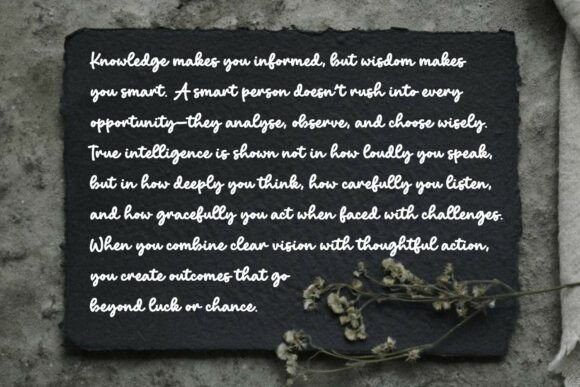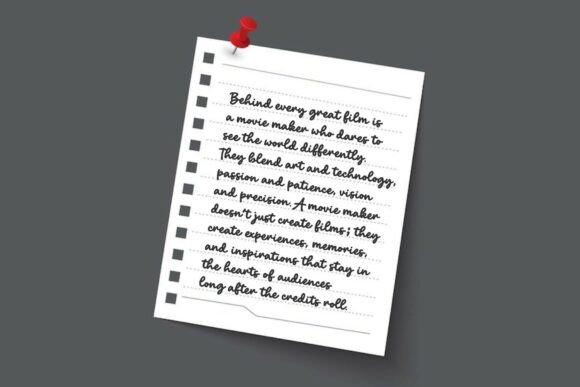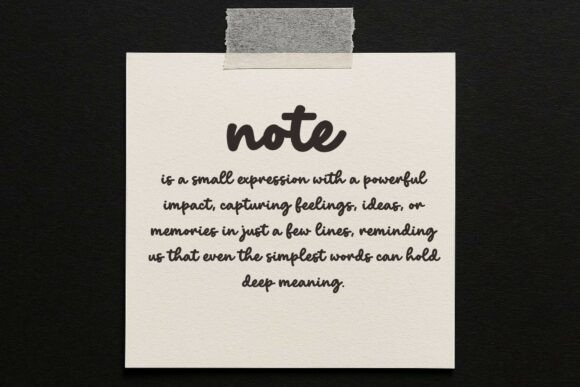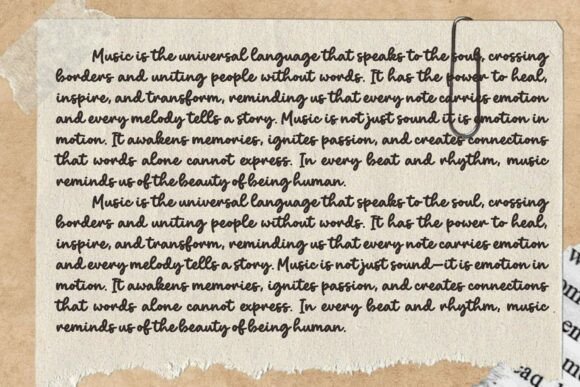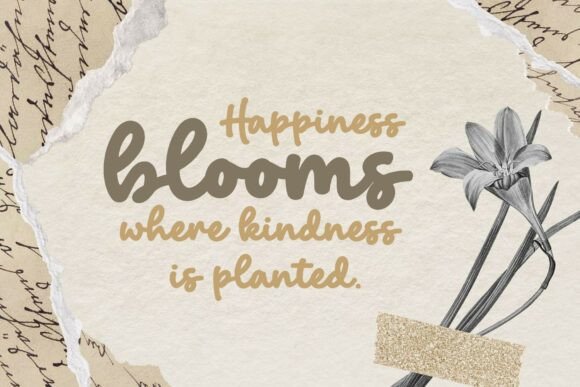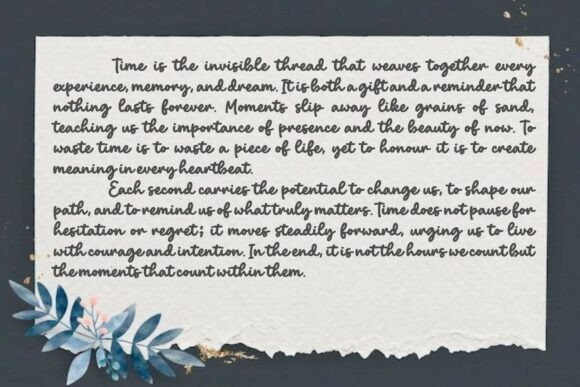
Discover the Beauty of Haiva Font
Imagine you’re brainstorming a new logo for your favorite brand, and you want it to feel personal and authentic. You’re scrolling through design resources, searching for the perfect font to capture the essence of your brand’s story. That’s when you stumble upon Haiva Font – a modern hand-lettering font that instantly sparks creativity and sets your imagination ablaze.
Haiva Font is more than just a design element; it’s a key to unlocking a unique visual identity for your creative project. Its organic feel, smooth strokes, and imperfect curves make it an excellent choice for branding, logos, social media graphics, and packaging. With Haiva Font, you can add a touch of warmth and personality to your designs, making them truly unforgettable. Whether you’re a seasoned designer or a hobbyist, this versatile font is sure to become a valuable addition to your design toolkit.
Key Features of Haiva Font
- Haiva Font is a unique and versatile design element that can be used with a transparent background to add depth and visual interest to any layout.
- With its sleek and modern design, Haiva Font is perfect for use in creative projects such as branding, logos, and advertising materials.
Honest Review: Haiva Font
As a designer, I’ve had the pleasure of exploring various design resources, and the Haiva Font has caught my attention. In this review, I’ll share my honest thoughts on this beautiful font.
What works well: ✨ The Haiva Font is a stunning creation that offers a unique, elegant style perfect for creative projects. Its high quality design makes it a great addition to any design portfolio. I appreciate how easy it is to use, even with a transparent background – it’s a breeze to customize and get the desired look.
Limitations: ⚠️ While the Haiva Font is an excellent choice for most design projects, I do wish it had more variations or weights to offer. This would allow designers to experiment with different styles and moods, making it even more versatile.
Overall impression: I’m thoroughly impressed with the Haiva Font, and I’d highly recommend it to fellow designers. Its unique style and high quality make it a valuable resource for any creative project.
- Unique, elegant style